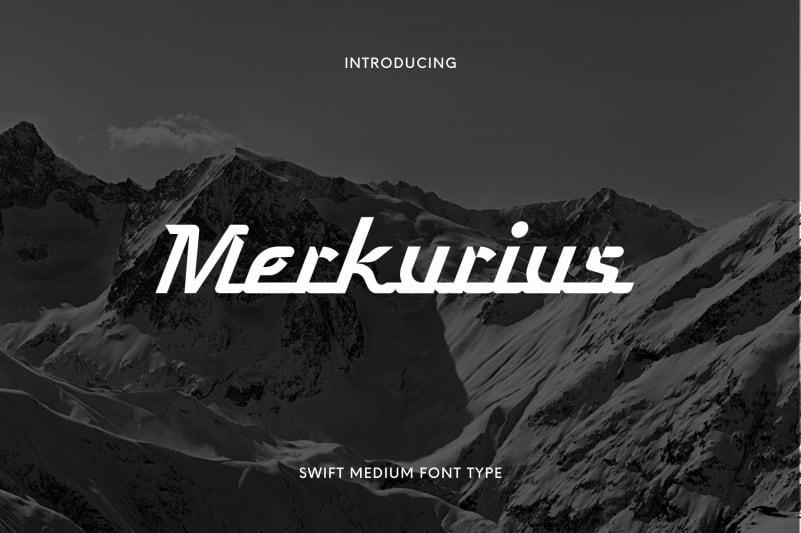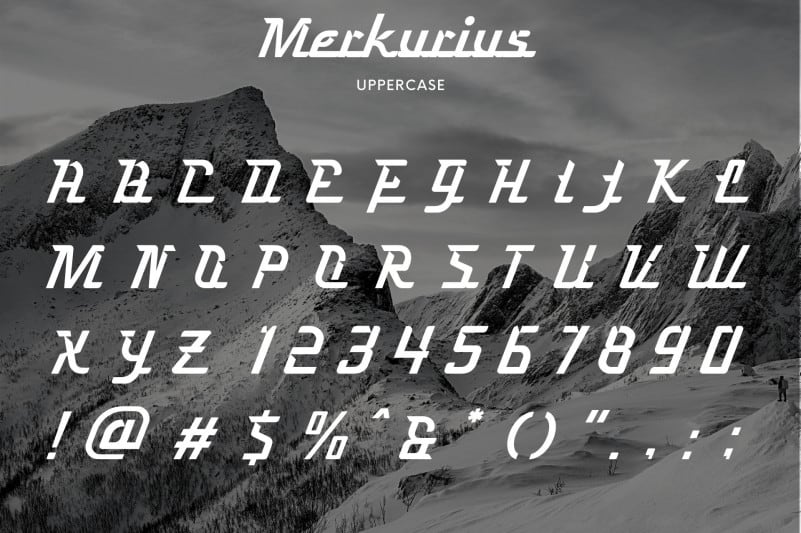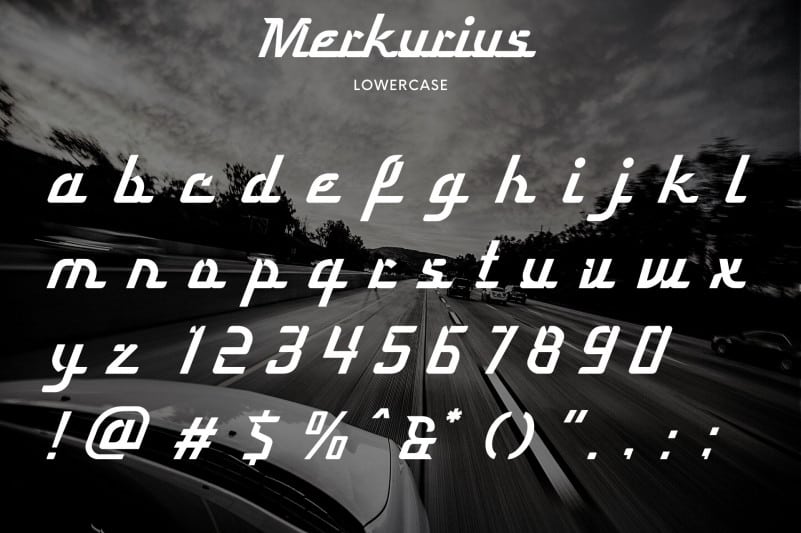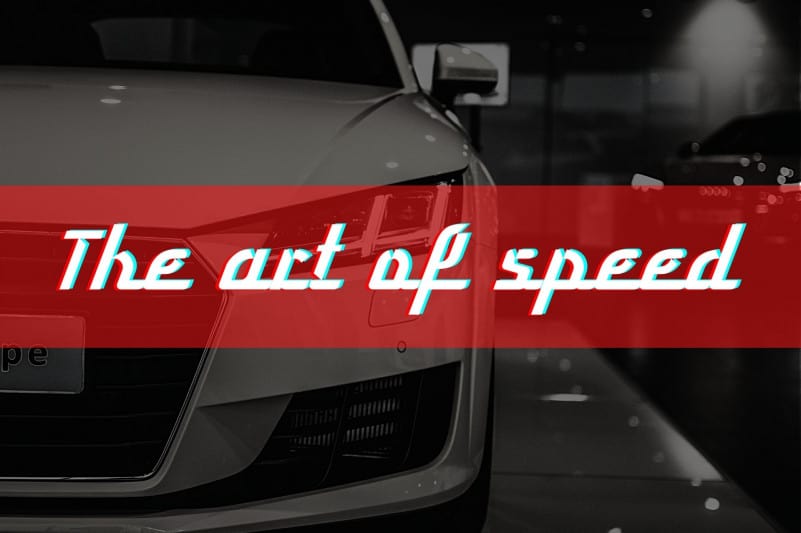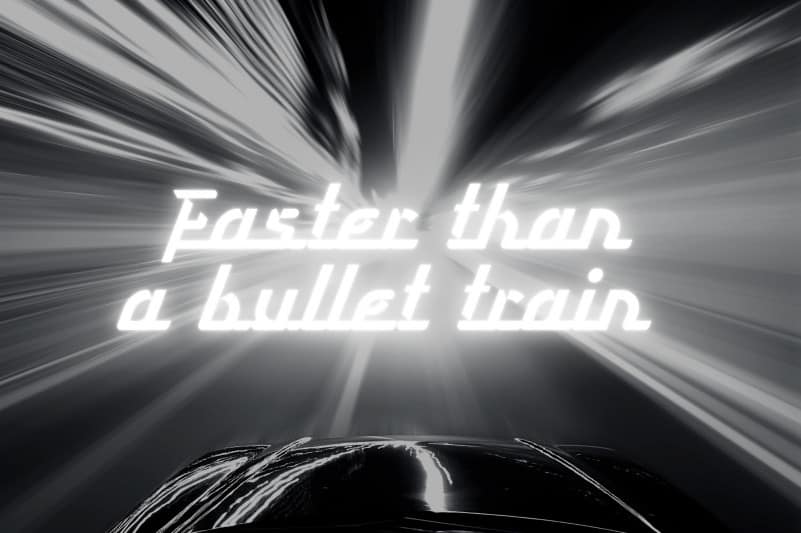
Merkurius Display Font is a medium weight font type. It has a strong character with underlines combine with smooth and sharp edges.
The swift-construction of Merkurius Display Font gives a classic durability which reminiscent of the 1980’s. It’s vibrant shapes can be suitable for both product and brand identity.